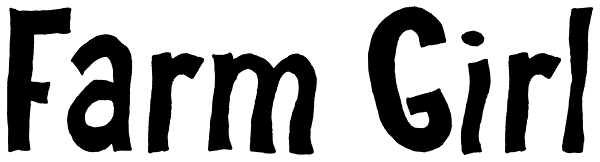
Farm Girl
From the lab of Open Window comes Farm Girl. Farm Girl was inspired by old Art Nouveau posters from Toulouse Lautrec and others. Farm Girl utilizes the same 'loosey-goosey' quality as those posters. Farm Girl consists of 3 different styles which are...
Farm Girl
Farm Girl Drop Shadow
Farm Girl Offset Fill